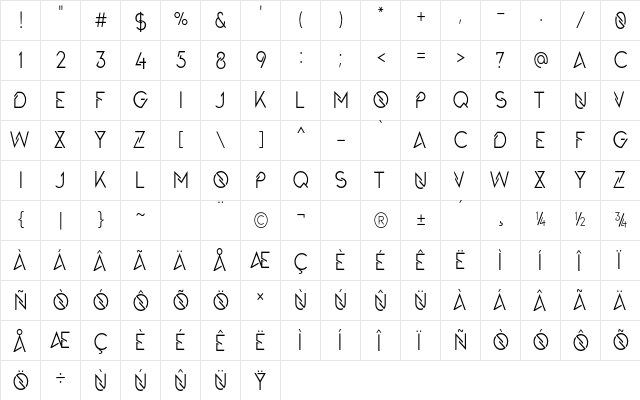
The Queens Gambit Regular
Design Context for The Queens Gambit Typeface
The Queens Gambit offers clean, dependable letterforms without strong stylistic allegiance, making it a practical choice for designers who need flexibility.
Pro Tip: Use The Queens Gambit in both headline and body roles to test its range before committing to a single application.